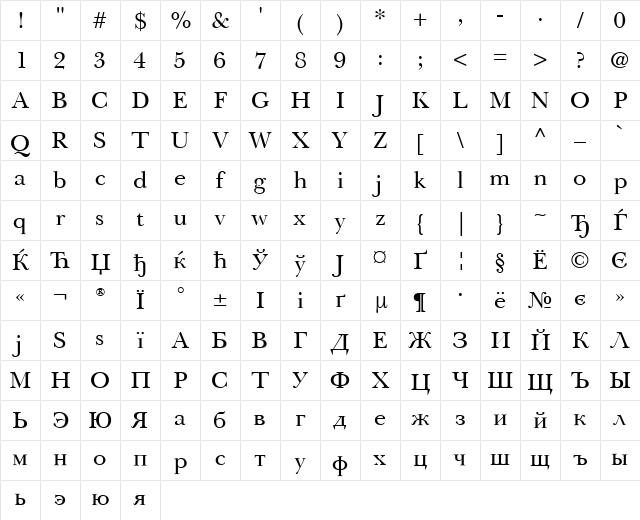
Baskerville Cyrillic Regular
Complete Baskerville Cyrillic Regular glyph index. Displaying only characters natively supported by Baskerville Cyrillic Regular font.
Design Context for Baskerville Cyrillic
Baskerville Cyrillic is a composed and adaptable typeface that performs quietly and consistently across a wide range of design contexts.